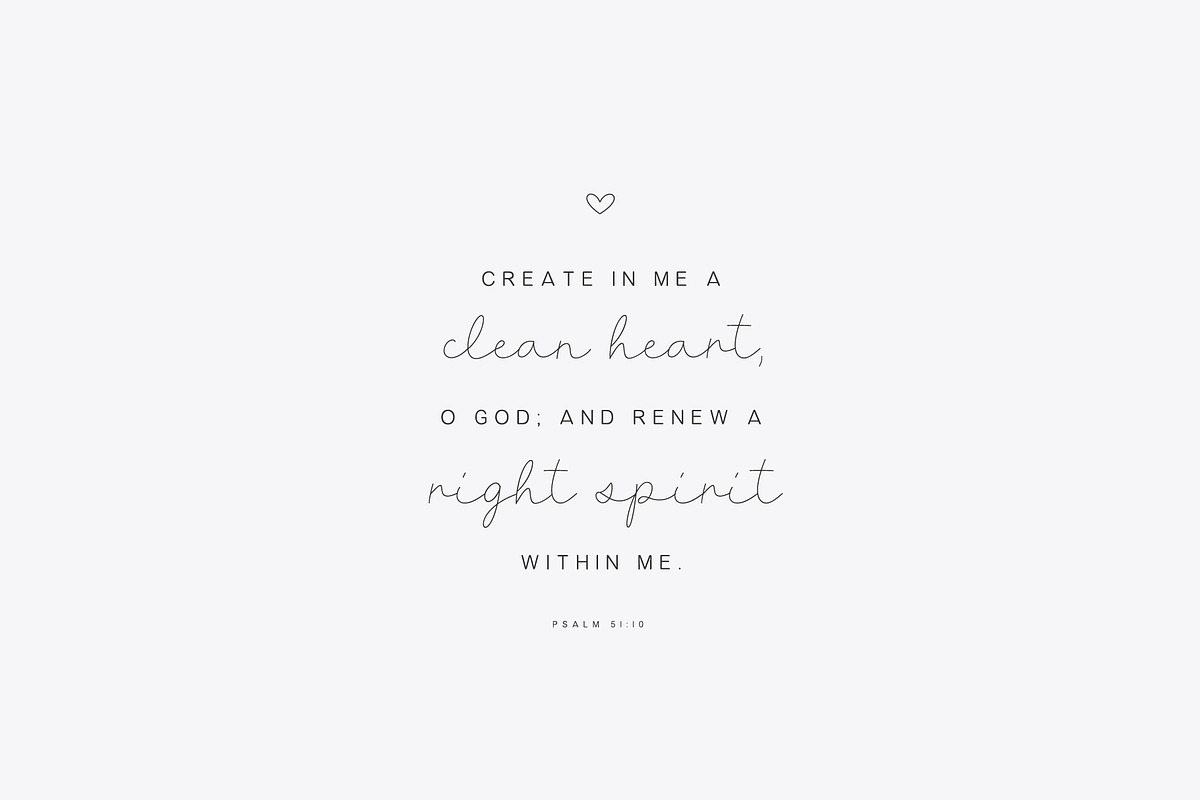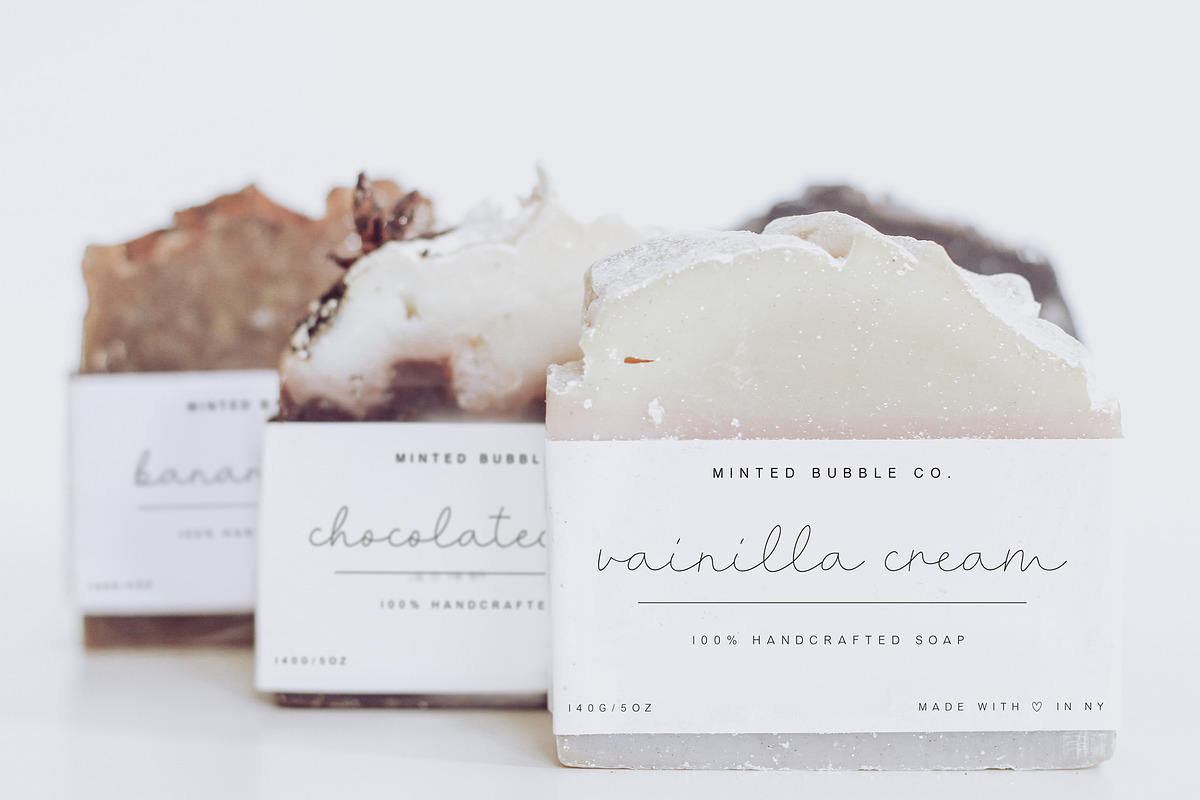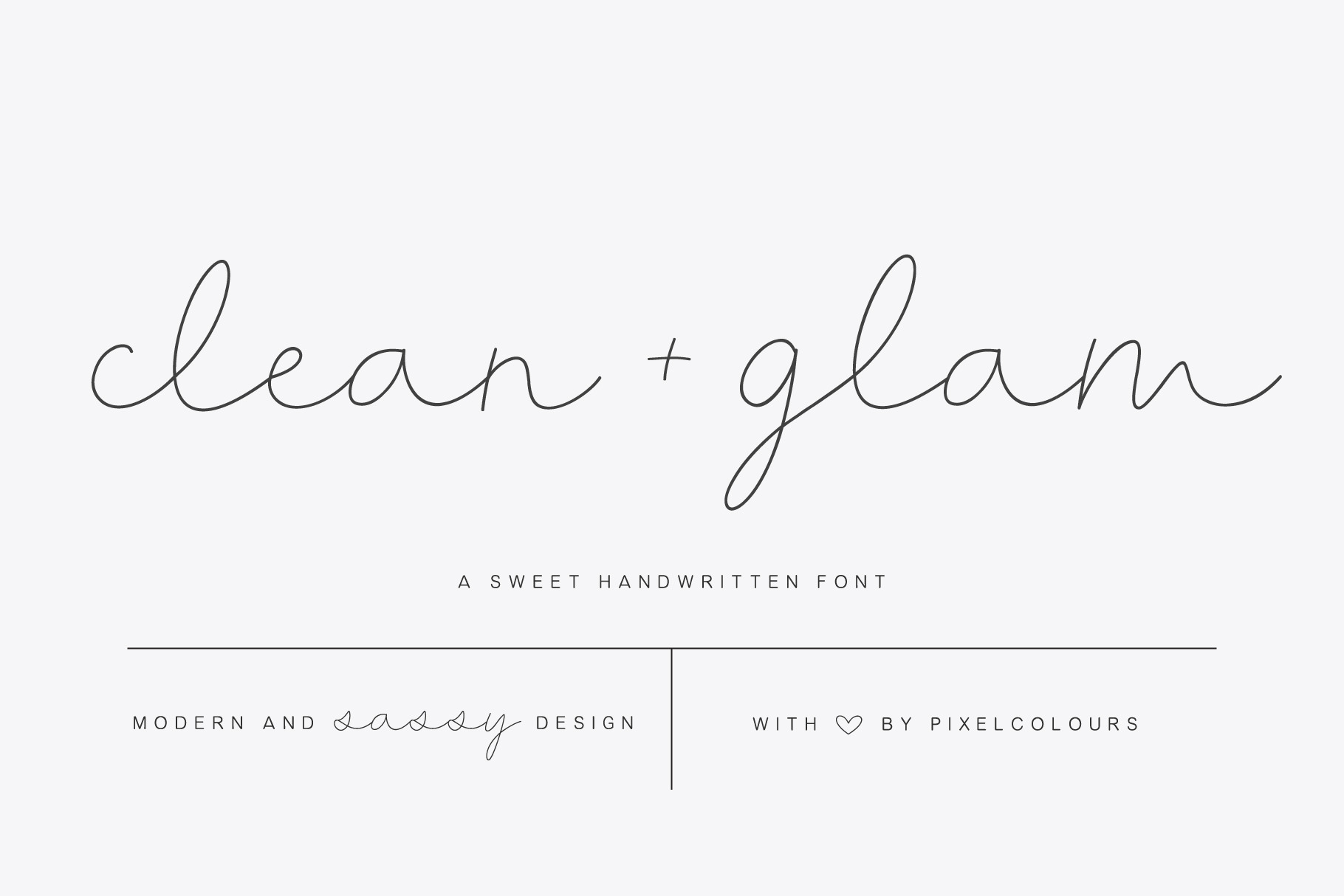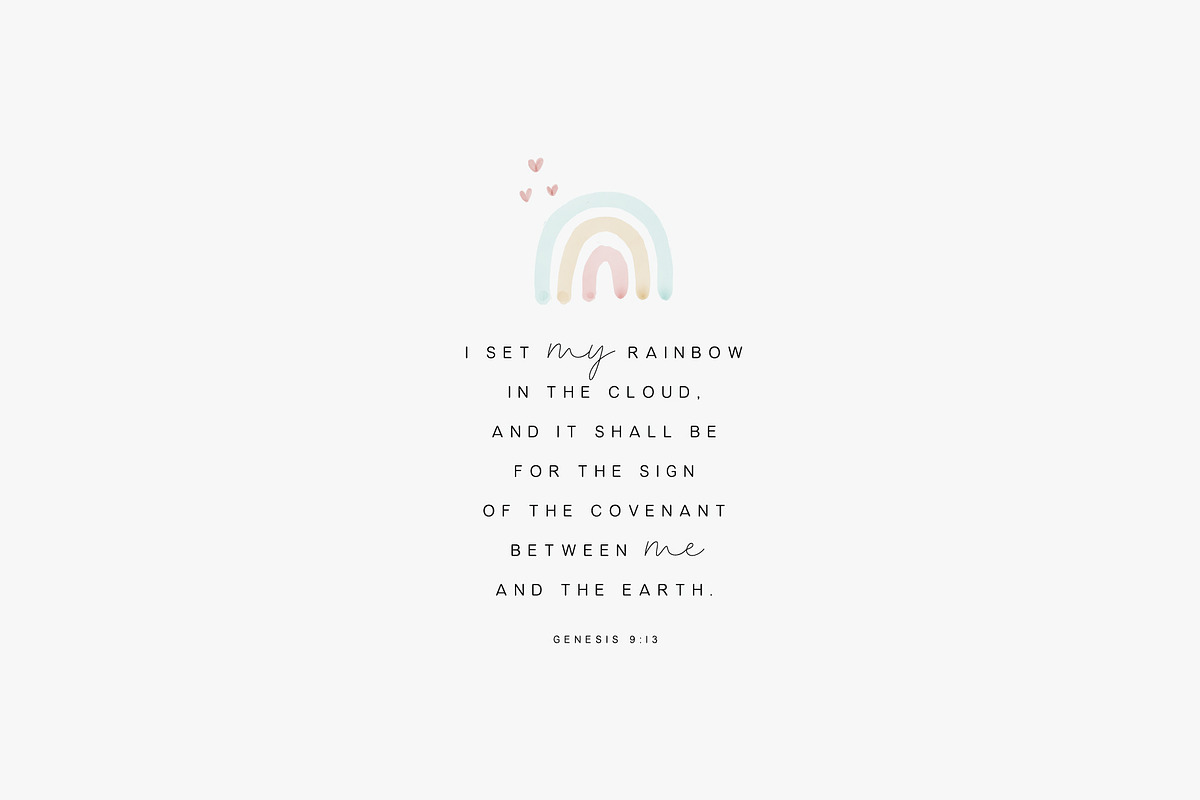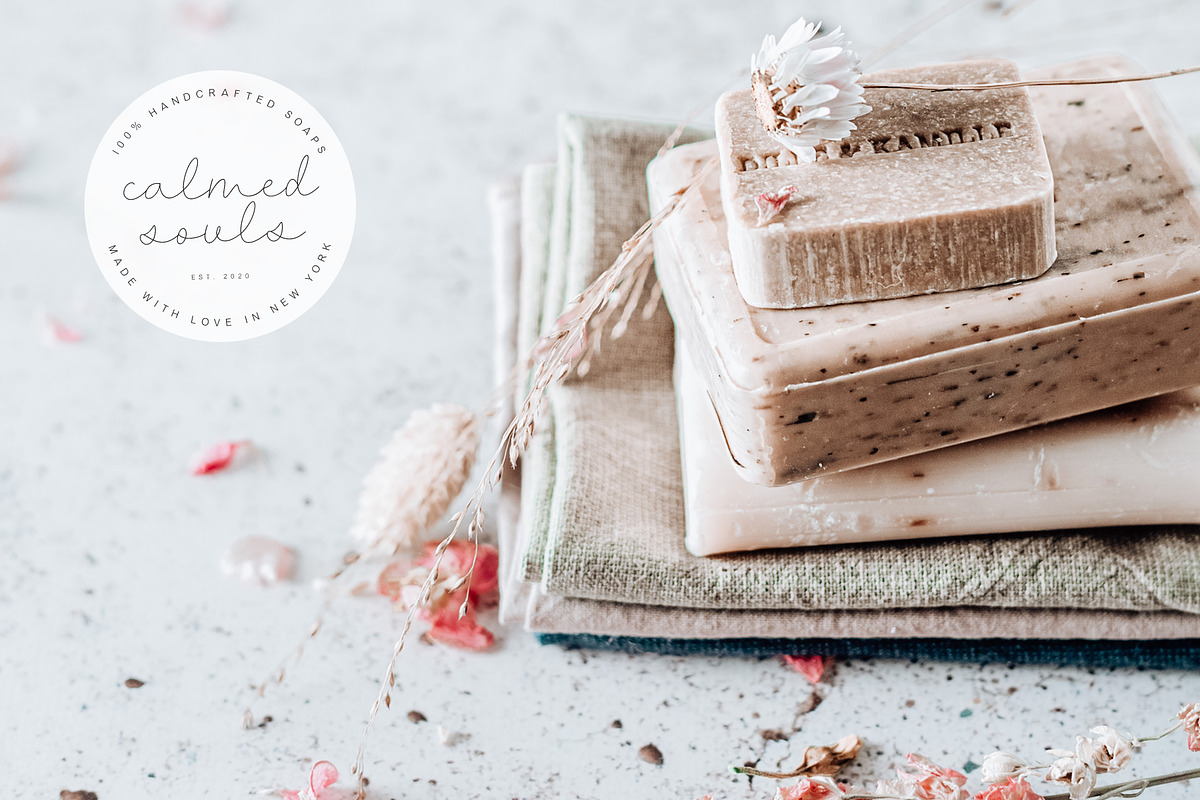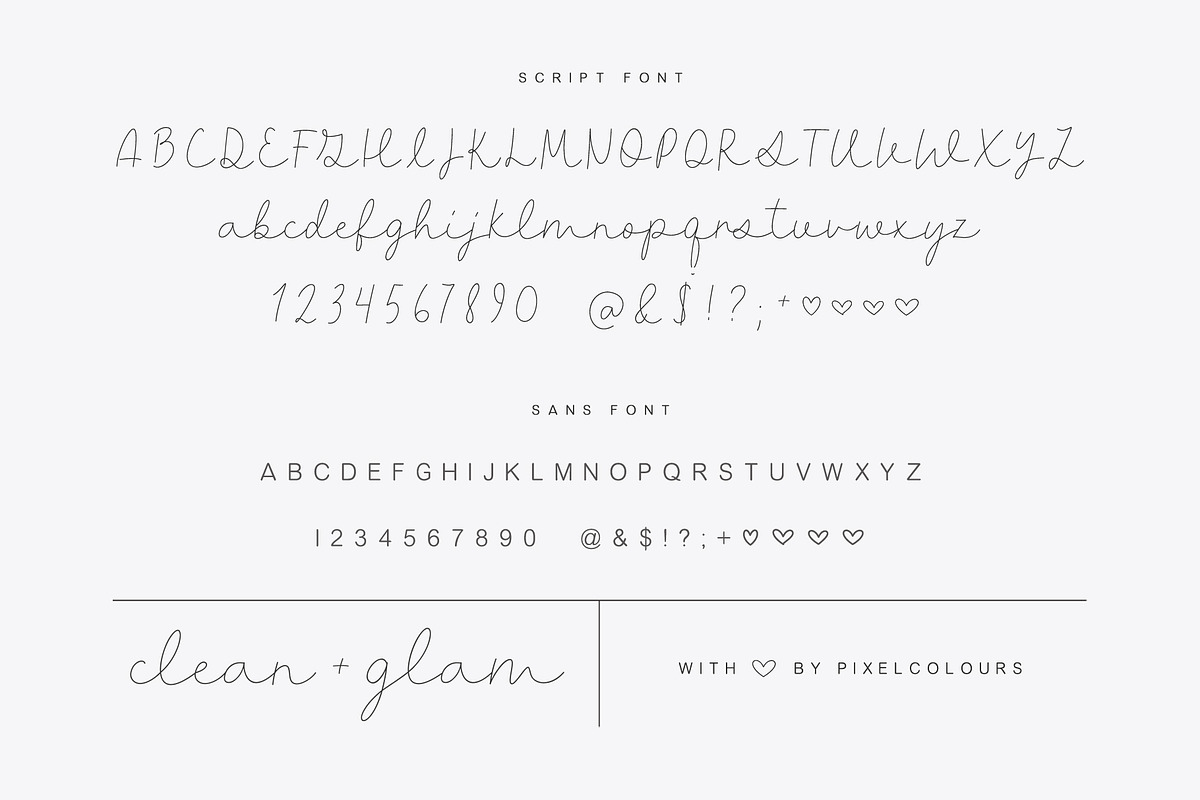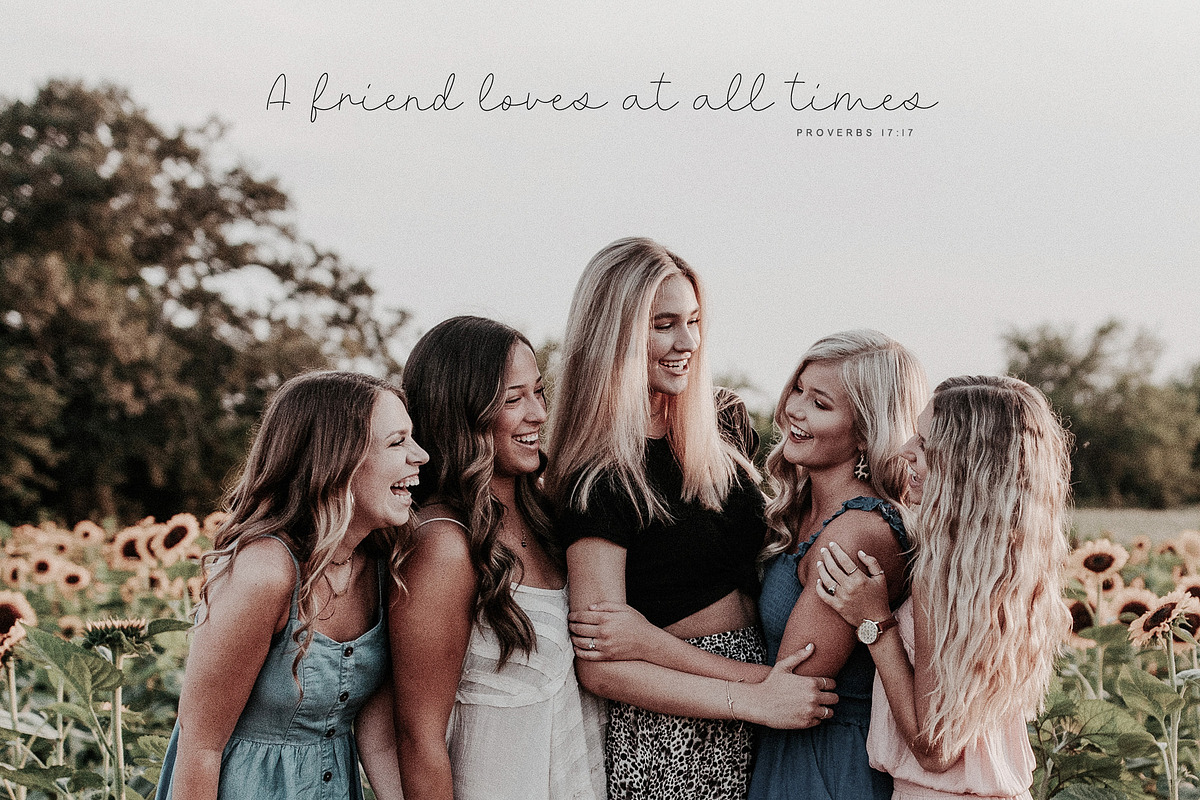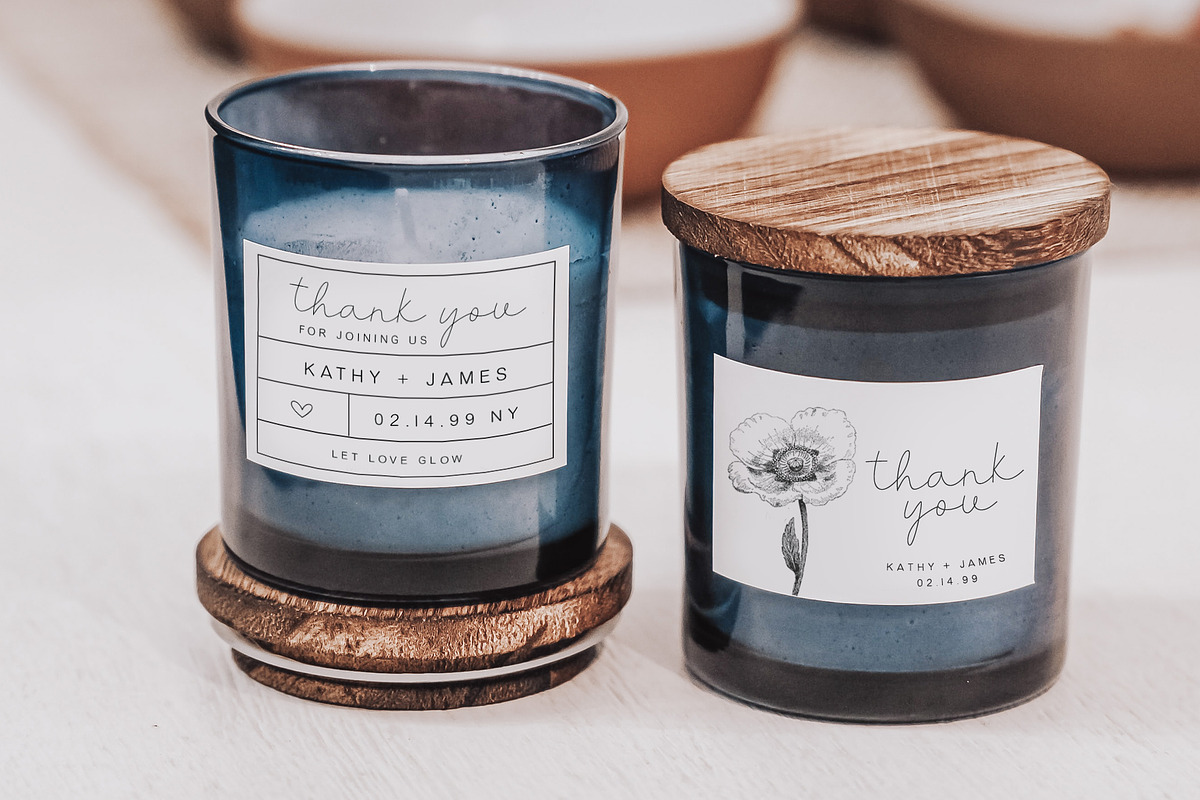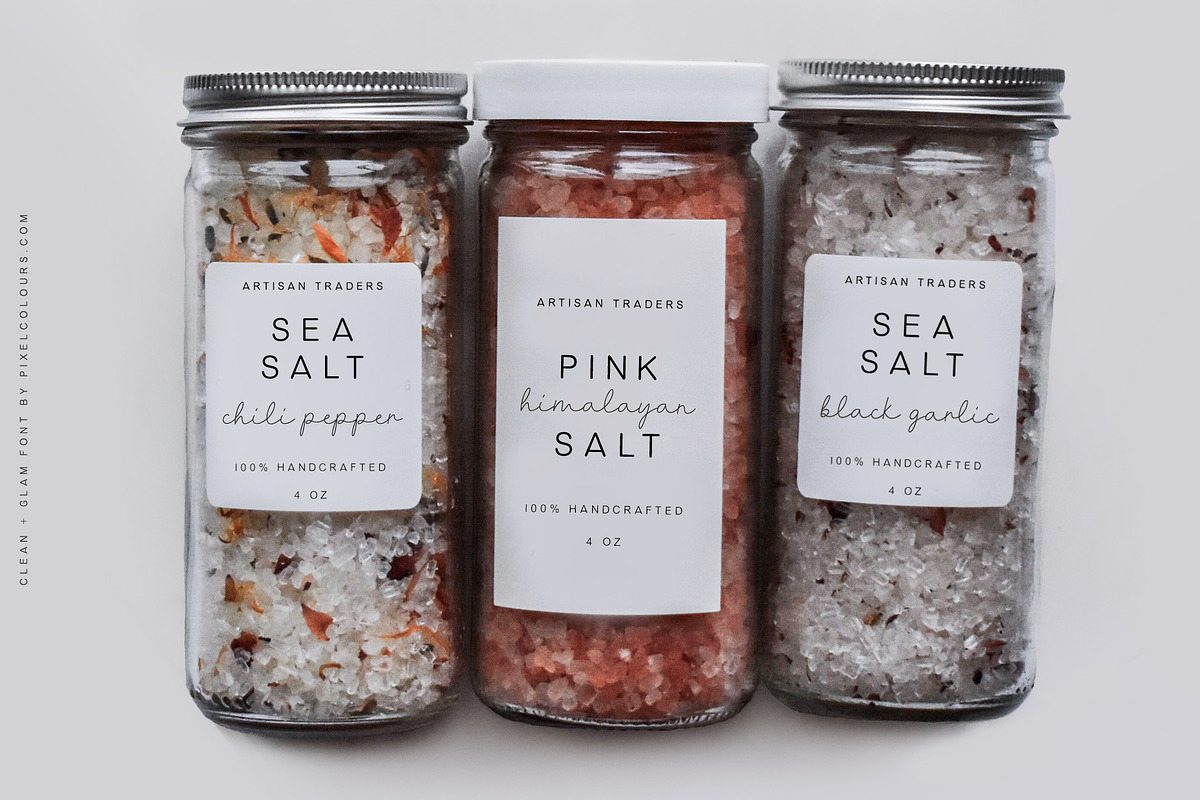
Clean and Glam Script Font Duo
Clean and Glam is a sweet handwritten font duo that has a sassy modern style to create the most beautiful design projects. ❤️ Includes a light monoline script font that is so chic and clean, and it combines perfectly with the uppercase sans to create amazing text combinations.
Works great for
Logos & branding, product packaging, product design, labelling, wedding design, social media posts, advertisement, editorial design, etc.
Clean and Glam: A light modern script font. Includes numerals, uppercase and lowercase characters, punctuation and some cute hearts.
Clean and Glam Sans: A modern uppercase sans font that is the perfect match of the script, great for descriptions, taglines, ingredients, etc. Includes numerals, uppercase and lowercase characters, punctuation and more cute hearts.